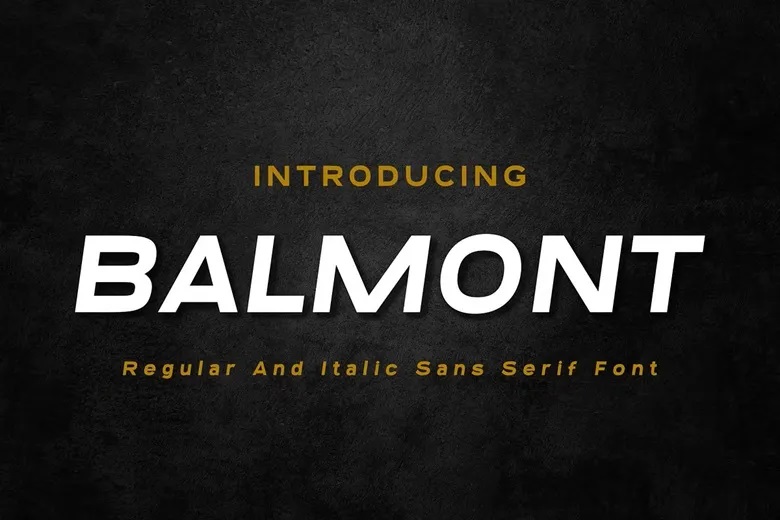
Balmont Font
Balmont is a modern sans-serif font designed to help your projects stand out. It features clean, geometric shapes and is available in both regular and italic styles, giving off a sporty, energetic feel.
Balmont Sans Serif Font